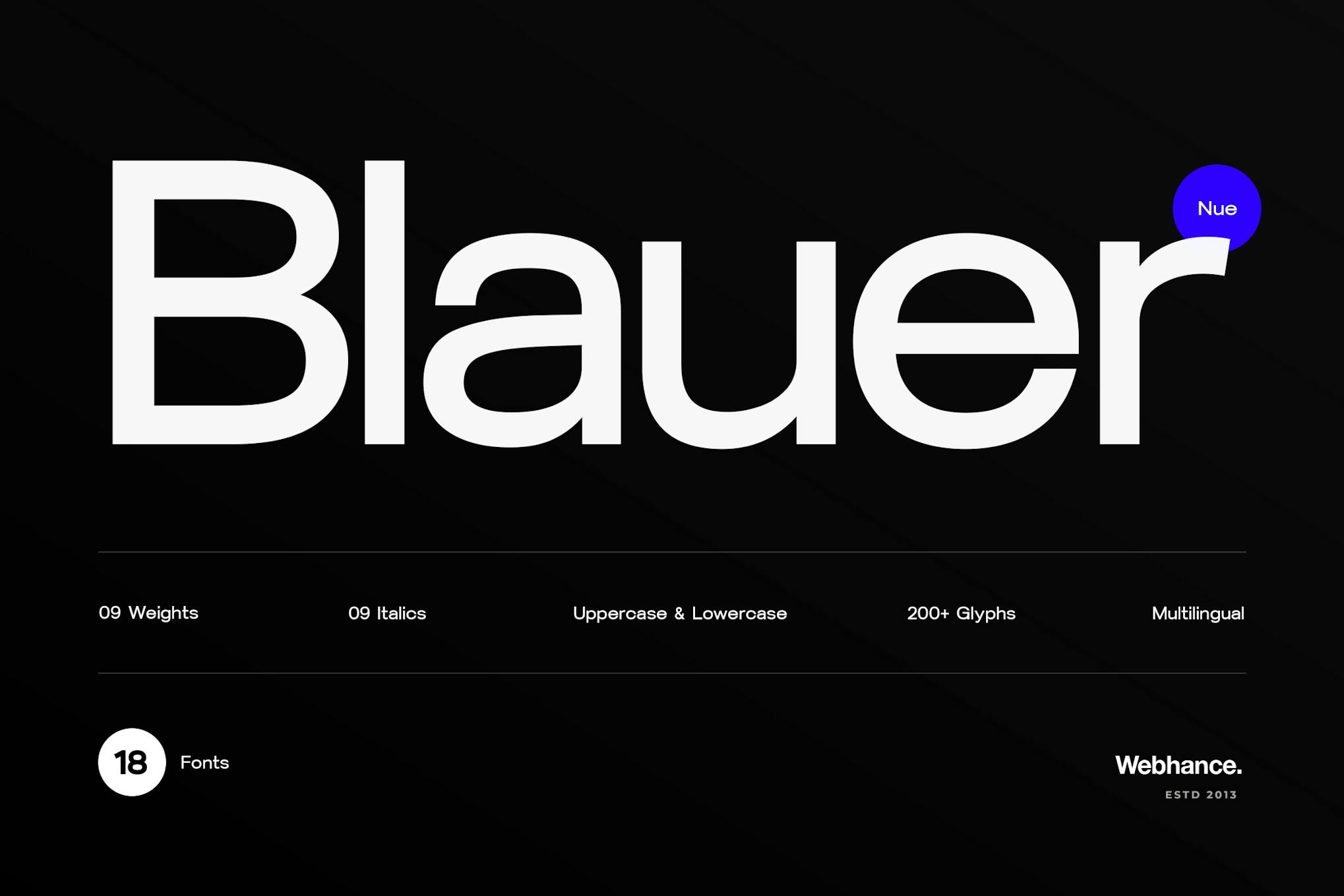
Blauer Nue - A Premium Sans-Serif Font Family
The Blauer Nue - A Premium Sans-Serif Font Family is perfect for corporate branding, modern websites, tech startup logos, minimalist packaging, professional presentations, editorial design, mobile app interfaces, and contemporary architectural signage.
What makes Blauer Nue - A Premium Sans-Serif Font Family so exciting is its perfect balance of contemporary sophistication and timeless functionality. This exceptional typeface represents the evolution of modern sans-serif design, featuring clean geometric forms with subtle humanist touches that create warmth and approachability. The font's carefully refined letterforms demonstrate meticulous attention to detail, with optimized spacing and proportions that ensure excellent readability across all media. Its versatile character makes it ideal for brands seeking to communicate innovation, reliability, and forward-thinking vision while maintaining professional credibility and visual clarity.
The Blauer Nue - A Premium Sans-Serif Font Family includes an extensive range of weights and styles to accommodate every design challenge. The comprehensive collection typically features nine weights from Thin to Black, each available in regular and italic versions, totaling eighteen distinct styles. The family also includes condensed variations, extended character sets with multilingual support, advanced OpenType features, stylistic alternates, and professional ligatures that enhance typography precision and creative flexibility.
The font family's technical precision ensures consistent performance in both digital and print environments, from tiny mobile screens to large-scale environmental graphics. Its carefully engineered metrics and kerning provide professional results automatically, while the extensive weight range offers unlimited creative possibilities for establishing clear visual hierarchies and brand differentiation.
Leading design agencies and Fortune 500 companies trust this premium sans-serif family for their most critical brand communications. Whether developing comprehensive brand systems, creating user interfaces for digital products, or designing editorial layouts for publications, this font family delivers the perfect combination of contemporary style, functional excellence, and professional reliability.